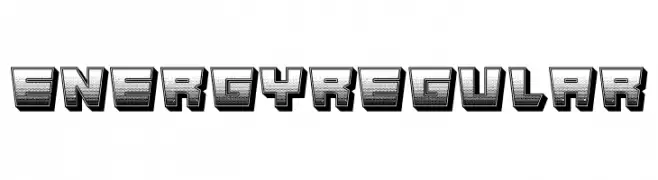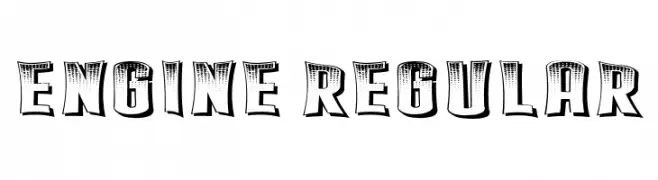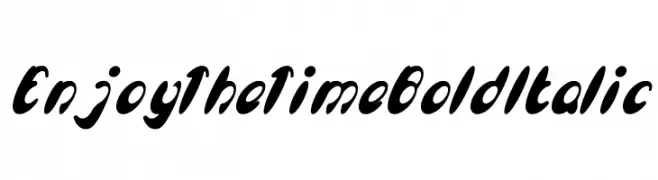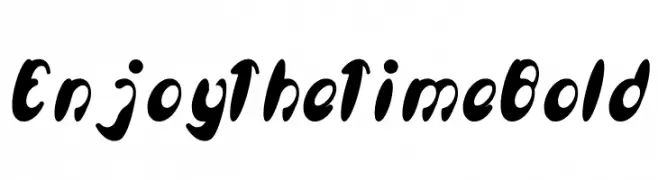
A bold, three-dimensional font with a strong, industrial aesthetic.
A bold, geometric font with sharp angles and a modern, edgy style.
A bold, geometric font with sharp angles and a futuristic feel.
A bold, italic font with sharp angles and a dynamic, modern style.
A bold, angular italic font with a futuristic and aggressive style.
A bold, geometric font with hollow interiors and a futuristic style.
A bold, geometric hollow font with a futuristic and striking design.
A bold, decorative font with a vintage, three-dimensional style.
A bold, playful font with rounded edges and a handwritten script style.
A bold, italic, and playful font with a dynamic and fluid style.